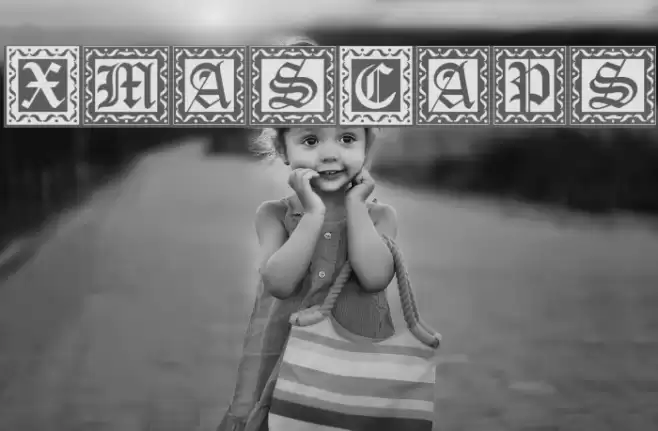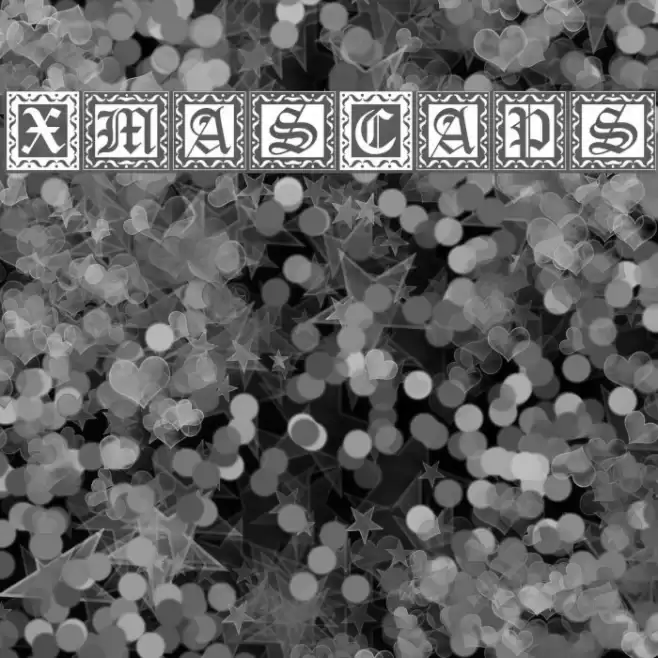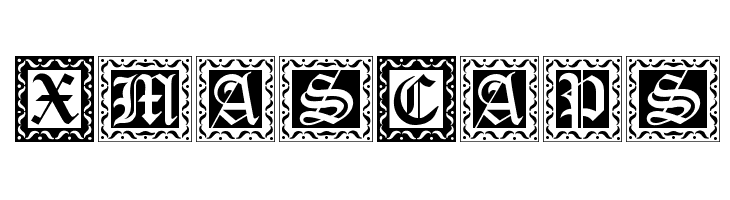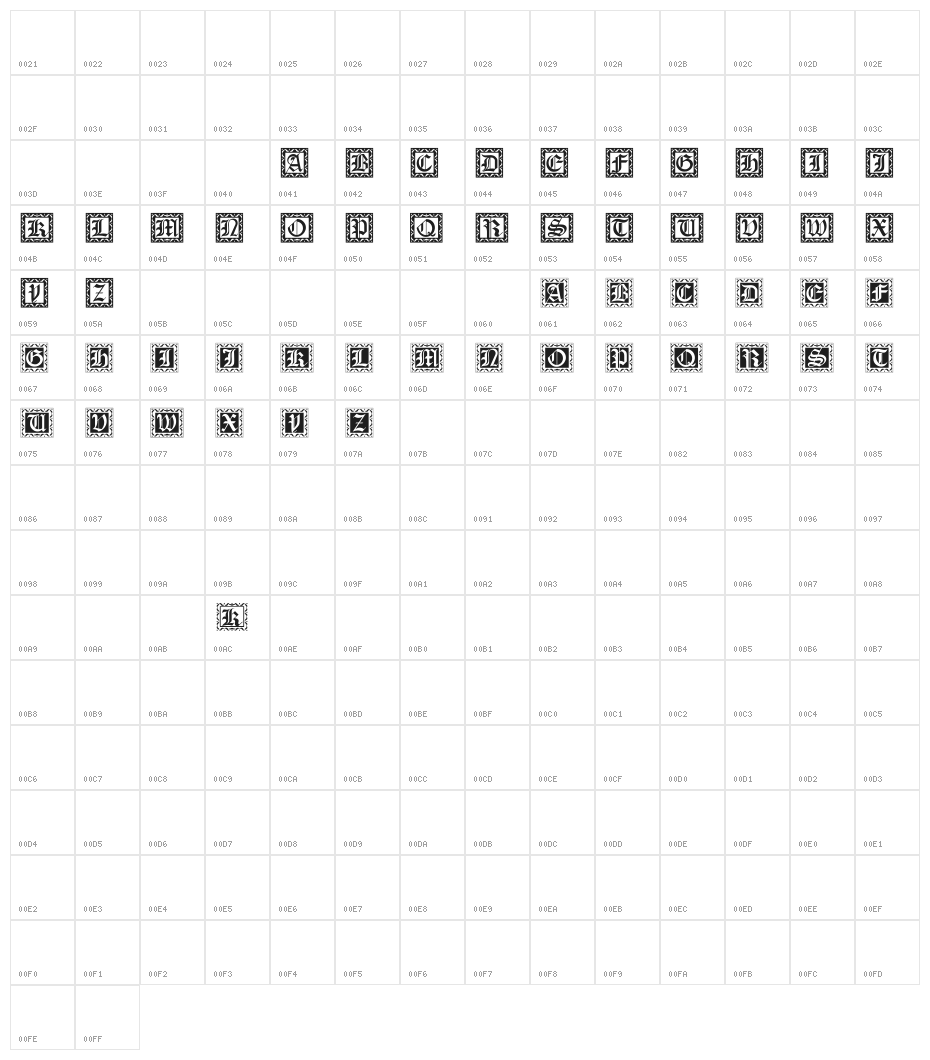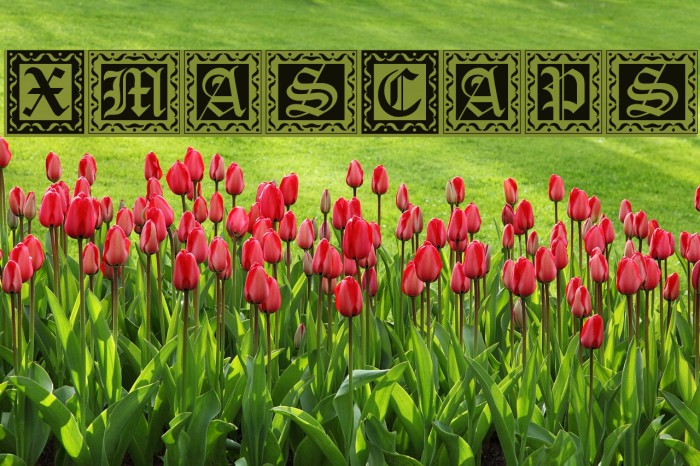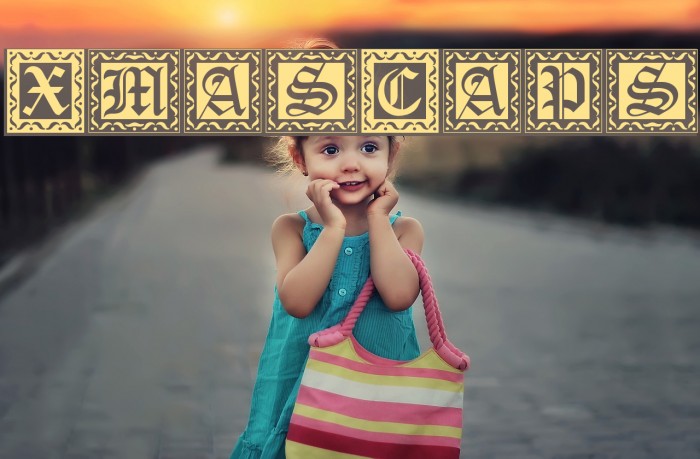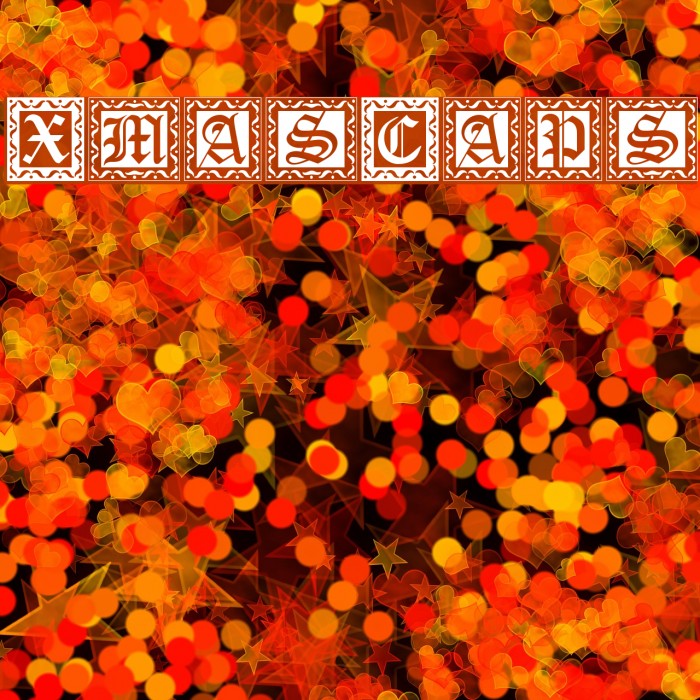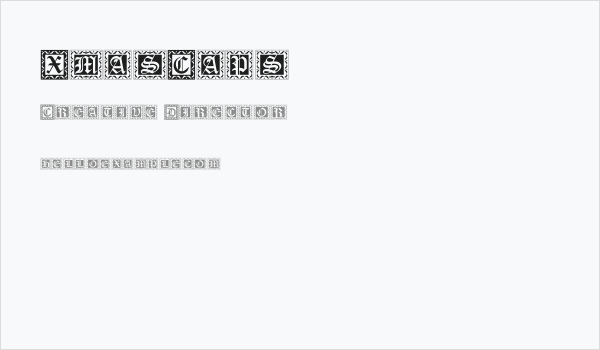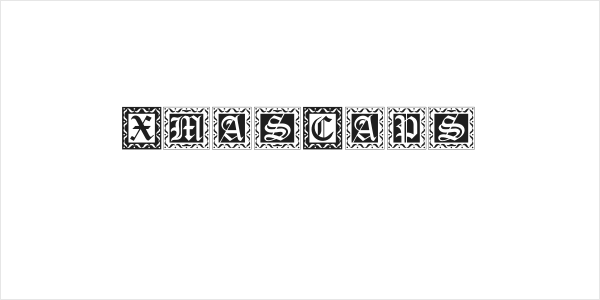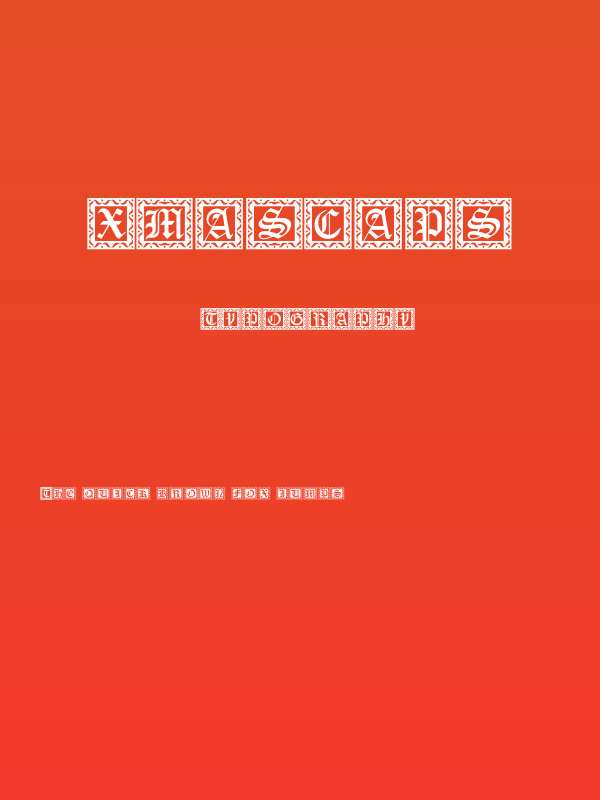
XmasCaps Font
XmasCaps Description
This font features an ornate, decorative style with each letter enclosed in a square frame, reminiscent of traditional holiday motifs. The characters are bold and feature intricate patterns that give a festive and vintage feel. The uppercase letters are prominently displayed, with a strong emphasis on decorative elements that enhance the overall aesthetic. The font does not include lowercase letters or numbers, focusing solely on uppercase characters. The design is highly stylized, making it suitable for special occasions and thematic projects.
Ornate, decorative uppercase font with festive, vintage motifs from Uncategorized fonts.
- Proposed Projects: Ideal for holiday cards, festive invitations, seasonal posters, and decorative signage.
- Overall Style: Vintage, Decorative
- Use Case: Headlines, Logos, Decorative text